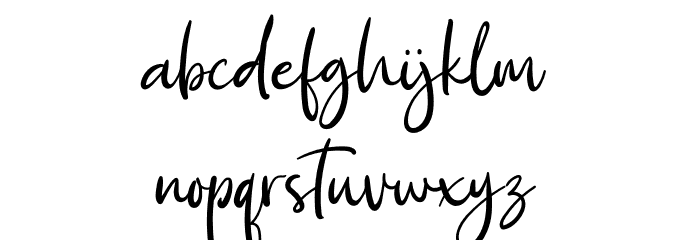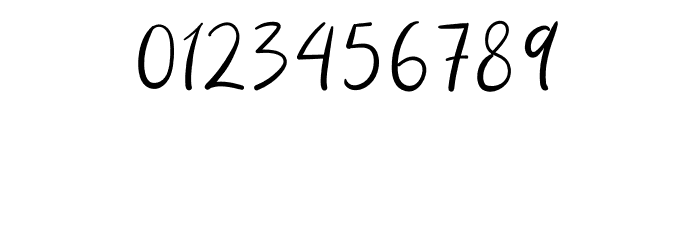
Kimie Roselyne Font
This font exudes a lively and expressive character, with its flowing, cursive style that mimics natural handwriting. The letters are elegantly connected, creating a sense of movement and fluidity. The uppercase letters are tall and slightly narrow, while the lowercase letters maintain a consistent baseline with occasional playful loops and flourishes. The numbers are clear and legible, maintaining the same handwritten charm. This font is perfect for adding a personal touch to any project, conveying warmth and creativity.
A lively, cursive handwritten font with elegant, flowing connections.
- Font: Kimie Roselyne
- Proposed Projects: Ideal for wedding invitations, greeting cards, personal branding, and creative projects that require a personal touch.
- Category: Handwritten
- Use Case: Logos, Headlines, Invitations